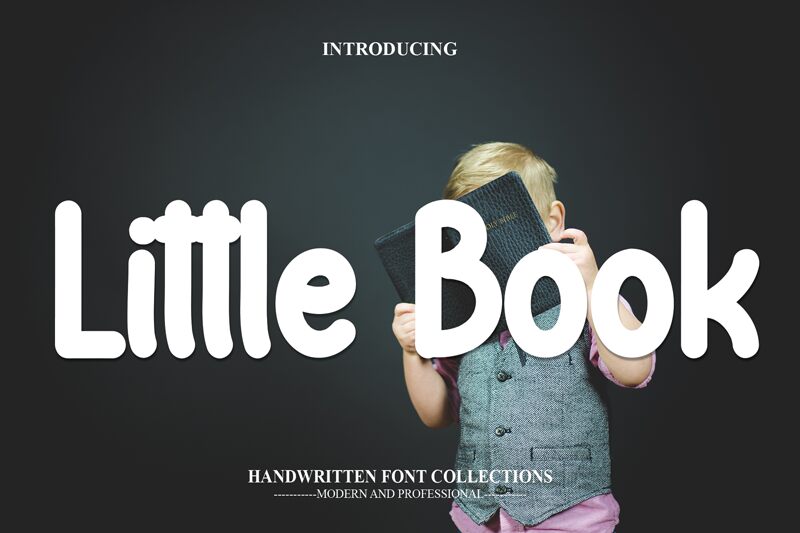
Little Book
Little Book, crafted by Andi Moz, is a sweet and friendly handwritten display font that radiates charm and warmth. Its playful curves and delightful strokes create an inviting aesthetic that is both cute and fun. The rounded forms of each letter add a whimsical touch, making it perfect for adding a light-hearted feel to any project.
Ideal for writing wedding invitations, cards, or any design needing a playful twist, Little Book stands out in its ability to convey friendliness and joy. Its natural handwritten style ensures every message feels personal and heartfelt. Whether you're designing for celebratory occasions or seeking to infuse some fun into everyday projects, Little Book brings an enchanting touch that's sure to captivate hearts.